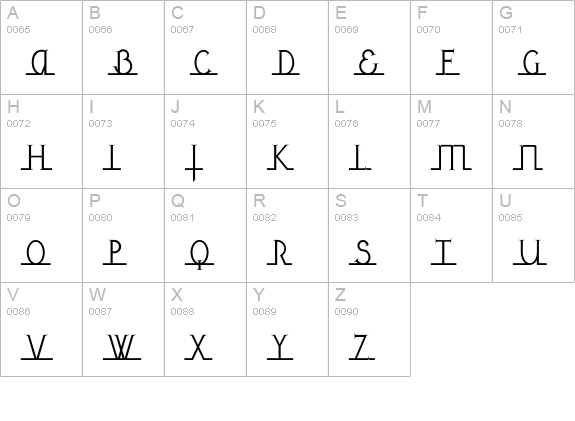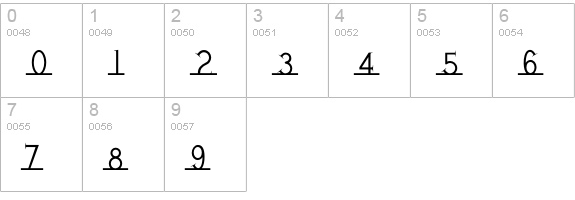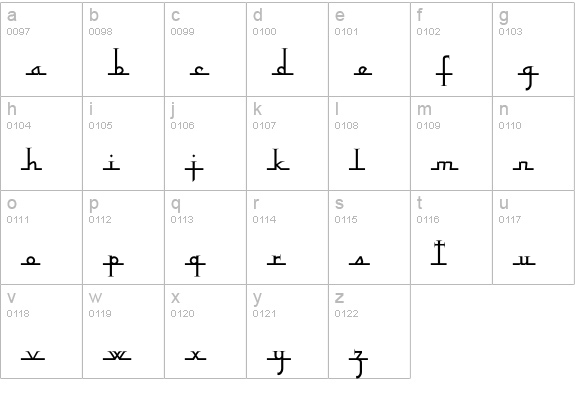
NixonScript Font Details
NixonScript is a stylish and elegant handwritten font that exudes sophistication and charm. With its graceful curves and flowing strokes, this font is perfect for adding a touch of class to your projects. Whether you're designing wedding invitations, branding materials, or social media graphics, NixonScript will elevate your work to the next level. What's even better is that NixonScript is completely free to download at FontsMarket.com. You can easily access this beautiful font and use it in your designs without any cost. Embrace the beauty of NixonScript and make your creations stand out with its timeless appeal. Download it today and add a touch of elegance to your projects.